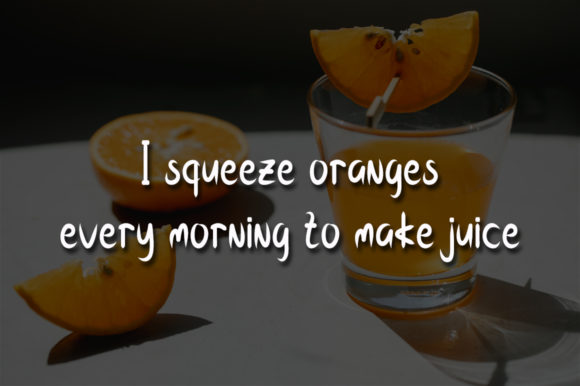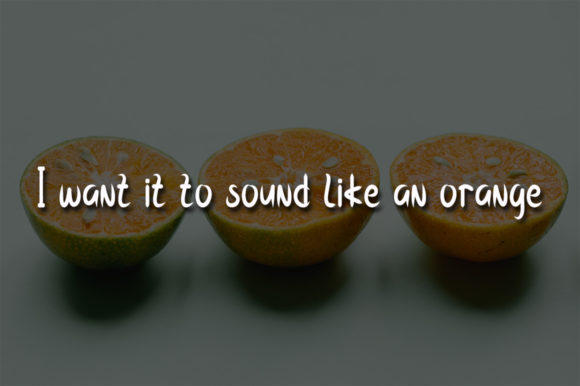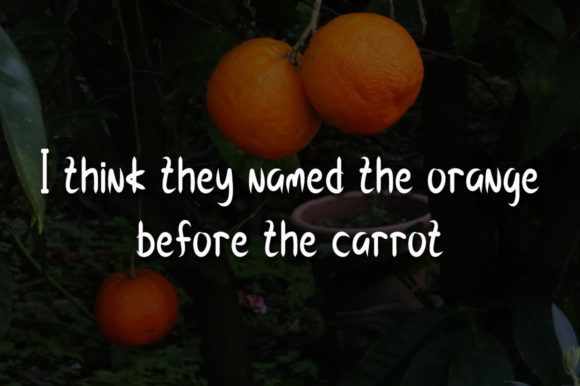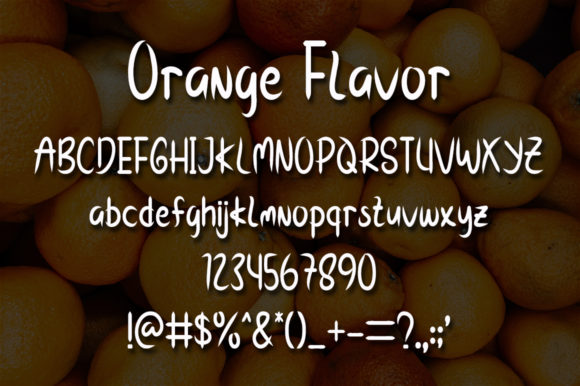
Introduction to Orange Flavor Font
Do you remember the excitement of creating your first art project as a child? The feeling of bringing an idea to life with colors, textures, and imagination? That same spark is what drives designers today, and it’s what makes the Orange Flavor Font so special. This stylish and unique script font is the perfect addition to any design project, adding a touch of creativity and personality that’s hard to find elsewhere.
Whether you’re a seasoned pro or just starting out, the Orange Flavor Font is a valuable resource for any designer looking to elevate their work. With its high-quality design and transparent background, this font is a game-changer for anyone working on a creative project that requires a little extra flair. And the best part? It’s available for free download, making it an accessible design resource for designers of all levels.
So why settle for ordinary when you can make your designs stand out with the Orange Flavor Font? This unique script font is sure to add a pop of color and creativity to your next project, and with its versatility, it’s perfect for everything from posters to thank you cards and everything in between.
Key Features of Orange Flavor Font
- High-quality, unique design suitable for creative projects, including logos, branding, and digital art.
- Perfect for designers looking for a unique and eye-catching font to add an orange flavor to their creative project.
Honest Review: Orange Flavor Font
As a designer, I’m always on the lookout for unique and high-quality design resources to enhance my creative projects. The Orange Flavor Font is one such resource that caught my attention. Here’s my honest review of this font.
- ✨ Unique and bold design: The Orange Flavor Font has a distinctive and eye-catching design that’s perfect for adding a pop of color to your creative project.
- ⚠️ Limited character set: The Orange Flavor Font has a limited character set, which may not be suitable for lengthy text-based projects.
- ⚠️ Not ideal for small text: The font is best suited for larger text sizes, as it may become difficult to read at smaller sizes.
Overall, the Orange Flavor Font is a great addition to any designer’s toolkit. Its unique design and high-quality formats make it an excellent choice for creative projects. While it may have some limitations, it’s definitely worth considering for your next design project. Plus, it’s available for free download, making it an excellent value for designers.
The Orange Flavor Font is a versatile design resource that can be used in a variety of creative projects, including branding, marketing materials, and social media graphics. Its high quality and transparent background make it an ideal choice for designers looking to add a pop of color and style to their designs.
To get the most out of the Orange Flavor Font, use it in combination with other design elements to create a cohesive and visually appealing design. Experiment with different font sizes, colors, and styles to find the perfect balance for your project.